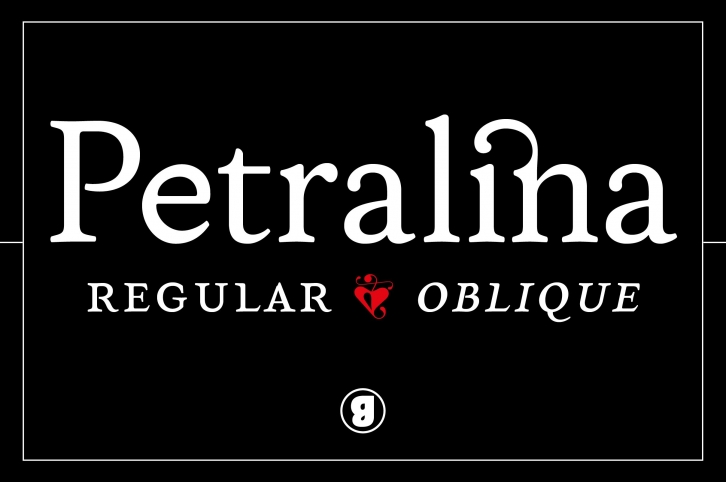
Petralina is a humanist serif font. It has a complete latin character set, ligatures, swashes, accented glyphs and OpenType features. Each font contains 1000+ glyphs, supporting more than 200 languages.
OpenType Features:
- Standard Ligatures
- Discretional Ligatures
- Multilanguage
- SmallCaps
- Lining Figures
- Oldstyle Figures
- Tabular Figures
- Tabular Oldstyle Figures
- Slashed zero
- Fractions
- Subscript
- Superscript
- Stylistic Sets
- Titling
- Swashes